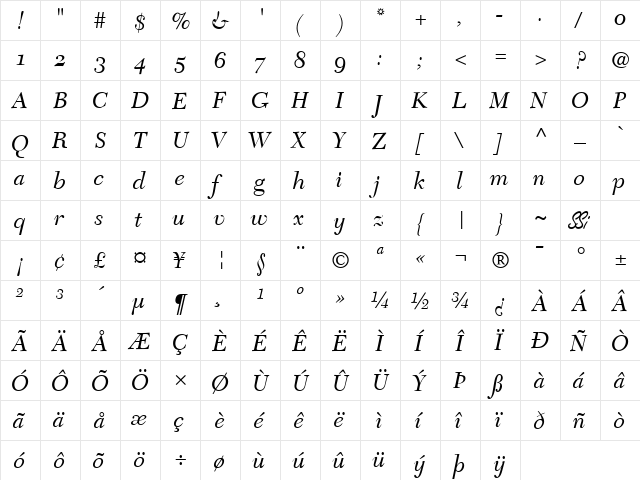
Tycoon OldStyle SSi Italic Old Style Figures
Design Context for Tycoon OldStyle SSi Typeface
Tycoon OldStyle SSi brings classic typographic sensibility to the table — its serifs and measured letterforms reflect centuries of print heritage. Its italic angle brings a sense of urgency and motion to the letterforms.